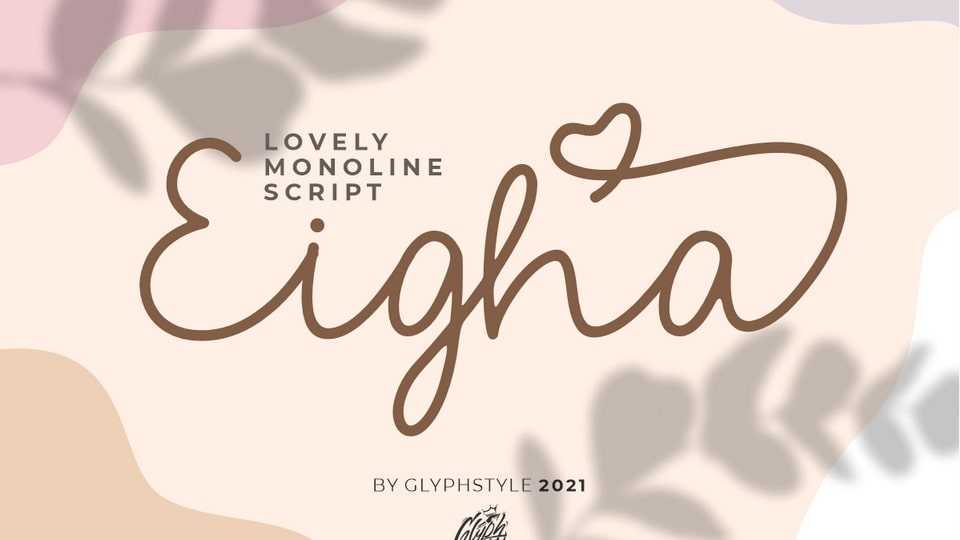
Download Eigha font, a monoline script typeface, a lovely writing font on a pretty love theme. This script font is perfect for covers, watermarks, branding, names, business cards, products, logos, etc.